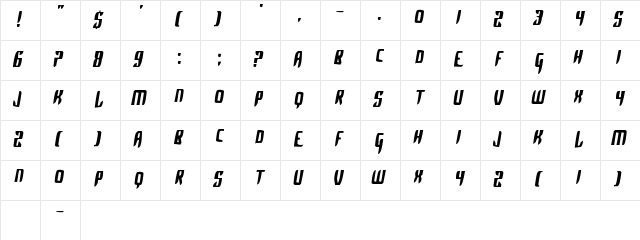
Alpha Sapphire Regular
| Designer | Andrew McCluskey |
Design Context for Alpha Sapphire Typeface
Alpha Sapphire is a composed and adaptable typeface that performs quietly and consistently across a wide range of design contexts.